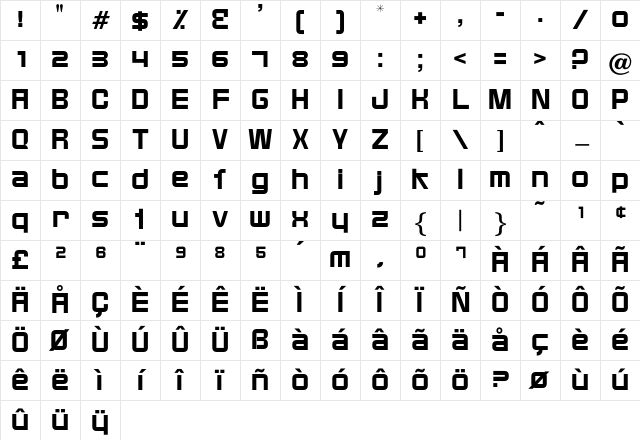
OPTIBenny OneSupplement Free Font
OPTIBenny OneSupplement
Style: OneSupplement
Design Context for OPTIBenny
OPTIBenny is a composed and adaptable typeface that performs quietly and consistently across a wide range of design contexts.